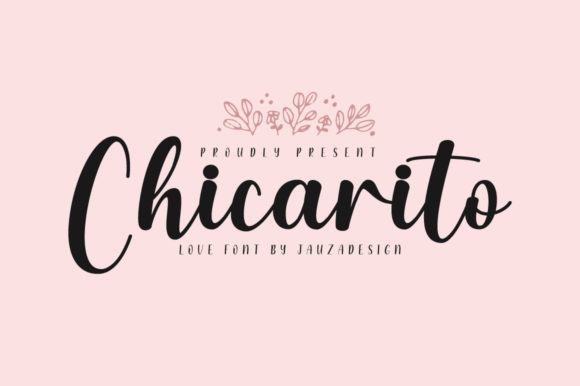
Chicarito Font
Download Chicarito Font for free! Created by jauzadesign and published by Aron Reynolds, this script font family is perfect for adding a unique touch to your designs.
Discover the mesmerizing allure of Chicarito, a script font born to elevate your designs to new heights. Its thin, romantic curves evoke a sense of elegance and charm that will captivate your audience.
Crafted with meticulous care, Chicarito's PUA encoding grants you effortless access to an enchanting array of glyphs and ligatures. Unleash your creativity and weave captivating words that shimmer on the page like a thousand stars.
Whether you're gracing a logo with an air of sophistication or crafting a heartfelt message that flows with grace, Chicarito is your font of choice. Its timeless beauty and unparalleled versatility will ignite your imagination and transform your creations into masterpieces that leave an unforgettable mark.